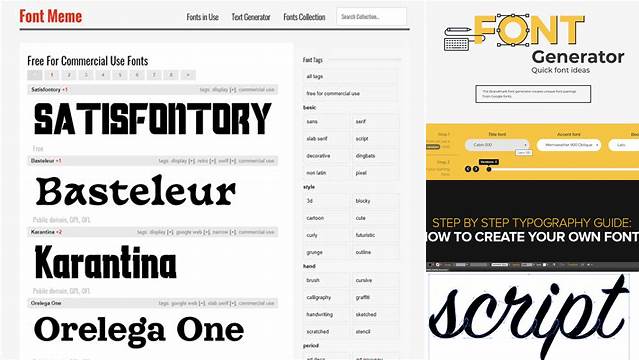
Free Font Creator: Design Your Own Fonts Online!
Creating your own font might sound like something only professional designers can do, but guess what? It's totally accessible to everyone now, thanks to free font creator websites! These platforms are super user-friendly and packed with features that let you unleash your inner typographer. Let's dive into the awesome world of font creation and see how you can make your mark with personalized typography.
H2: Understanding Free Font Creator Websites
Free font creator websites are online tools that allow you to design, customize, and generate your own fonts without needing to download any software. They typically offer a range of drawing tools, character templates, and import options to help you craft unique typefaces. These websites democratize font design, making it possible for hobbyists, educators, and small business owners to create custom fonts that reflect their brand or personality. The beauty of these platforms is that they're often intuitive, meaning you don't need years of graphic design experience to get started. Many also offer tutorials and support forums to guide you through the process. Plus, the "free" aspect is a major draw, allowing you to experiment without any financial commitment. Whether you're looking to create a handwritten font, a futuristic typeface, or a simple corporate font, free font creator websites provide the resources and flexibility you need. It's about more than just saving money, though. It's about gaining creative control and producing fonts that are perfectly tailored to your specific needs and vision. So, if you've ever dreamed of seeing your own handwriting transformed into a digital font or designing a logo with a truly unique typeface, these websites are your gateway to making that dream a reality.
H2: Benefits of Using Online Font Makers
Using an online font maker comes with a plethora of benefits that make the entire process both accessible and enjoyable. First and foremost, the convenience factor is huge. Instead of installing bulky software on your computer, you can simply access a free font creator website from any device with an internet connection. This means you can work on your fonts from your home, office, or even while traveling. Another major advantage is the cost savings. Traditional font design software can be quite expensive, putting it out of reach for many individuals and small businesses. With free font creator websites, you can create professional-quality fonts without spending a dime. These platforms also tend to be very user-friendly. They often feature intuitive interfaces and drag-and-drop functionality, making it easy for beginners to jump right in and start designing. Plus, many free font creator websites offer real-time previews, so you can see how your font looks as you're creating it. This allows you to make adjustments and refinements on the fly, ensuring that the final product meets your expectations. Furthermore, online font makers often provide collaborative features, allowing you to work with others on the same project. This can be particularly useful for teams or individuals who want to get feedback from others during the design process. Finally, many free font creator websites offer a wide range of export options, allowing you to save your fonts in various formats that are compatible with different applications and operating systems. In short, using an online font maker combines convenience, affordability, ease of use, and collaboration, making it a fantastic option for anyone interested in creating their own fonts.
H2: Key Features to Look for in a Font Creator
When you're on the hunt for the perfect free font creator website, there are a few key features you should keep an eye out for to ensure you get the most out of your font-making journey. First up is a user-friendly interface. Nobody wants to spend hours trying to figure out how to use a complicated tool. Look for a website that has a clean, intuitive layout and is easy to navigate. The best free font creator websites will also offer a variety of drawing tools. Think about features like pen tools, brush tools, and shape tools, which will allow you to create a wide range of different font styles. The more versatile the tools, the more creative you can get with your designs. Another important feature is the ability to import and export different file formats. You'll want to be able to import existing images or designs to use as a base for your font, and you'll also need to be able to export your finished font in a format that's compatible with your operating system and design software. Look for support for file formats like TTF (TrueType Font) and OTF (OpenType Font). Character customization options are also crucial. The ability to adjust the kerning, spacing, and other attributes of individual characters will give you greater control over the overall look and feel of your font. Finally, consider whether the free font creator website offers any collaborative features. If you plan to work on fonts with others, look for a platform that allows multiple users to access and edit the same project. By keeping these key features in mind, you'll be well-equipped to choose a free font creator website that meets your needs and helps you bring your font ideas to life.
H2: Top Free Font Creator Websites Reviewed
Finding the right free font creator website can be a game-changer for your design projects. Let's take a look at some of the top contenders in the world of online font creation. First up is BirdFont. This open-source font editor is a favorite among designers for its clean interface and powerful features. It supports a variety of vector formats and allows you to create both TrueType and OpenType fonts. BirdFont is particularly well-suited for creating fonts with complex shapes and curves. Next, there's FontStruct, a browser-based font editor that uses a modular approach to font design. With FontStruct, you create fonts by assembling geometric shapes, which makes it easy to create pixel-perfect fonts. It's a great option for beginners who are just starting to explore font design. Then we have Calligraphr, which is a unique tool that lets you turn your handwriting into a font. Simply print out a template, fill it in with your handwriting, and then upload it to Calligraphr. The website will then convert your handwriting into a usable font file. This is a fantastic option for creating personalized fonts for invitations, cards, and other projects. Another popular choice is Metaflop, a parametric font editor that allows you to create fonts by adjusting a set of parameters. This makes it easy to create variations of a font and experiment with different styles. Metaflop is a great option for designers who want to create fonts that are both unique and versatile. Finally, there's FontForge, a powerful and feature-rich font editor that's been around for many years. FontForge is a bit more complex than some of the other options on this list, but it offers a wide range of advanced features for creating professional-quality fonts. So, whether you're a beginner or an experienced designer, there's a free font creator website out there that's perfect for you.
H2: Step-by-Step Guide to Creating Your First Font
So, you're ready to dive into the world of font creation using a free font creator website? Awesome! Here’s a step-by-step guide to help you create your very first font: Step 1: Choose Your Platform. Select a free font creator website that suits your needs. Consider the features, user interface, and any tutorials it offers. Step 2: Set Up Your Account. Most platforms will require you to create an account. This is usually a quick and easy process, requiring just an email address and a password. Step 3: Familiarize Yourself with the Interface. Take some time to explore the layout and tools. Look for the drawing tools, character customization options, and import/export features. Step 4: Start with a Template (Optional). Many free font creator websites offer templates for each character. This can be a helpful starting point, especially if you're new to font design. Step 5: Begin Designing Your Characters. Use the drawing tools to create each character in your font. Start with the basic letters (A, B, C, etc.) and then move on to numbers, symbols, and punctuation marks. Step 6: Customize Each Character. Adjust the kerning, spacing, and other attributes of each character to fine-tune the overall look and feel of your font. Step 7: Test Your Font. Use the preview feature to see how your font looks in different contexts. Try typing out different words and phrases to see how the characters work together. Step 8: Make Adjustments. Based on your testing, make any necessary adjustments to your characters. Step 9: Export Your Font. Once you're happy with your font, export it in a compatible file format (e.g., TTF or OTF). Step 10: Install and Use Your Font. Install your new font on your computer and start using it in your design projects. Congratulations, you've created your first font! With a little practice and experimentation, you'll be creating professional-quality fonts in no time using a free font creator website.
H2: Designing Different Font Styles
Crafting a unique font style with a free font creator website is an exciting venture, allowing you to tailor your typography to perfectly match your creative vision. Whether you're aiming for a classic serif, a modern sans-serif, or something entirely avant-garde, the possibilities are endless. Let's explore some different font styles you can design and how to approach each one using these online tools. First, consider the elegant and timeless serif fonts. These fonts are characterized by their small decorative strokes, or serifs, at the end of each character. To create a serif font, pay close attention to the thickness and shape of these serifs, ensuring they are consistent across all characters. Next, we have the clean and minimalist sans-serif fonts. These fonts lack the serifs, giving them a more modern and streamlined appearance. When designing a sans-serif font, focus on the uniformity of the strokes and the overall balance of the characters. For a more whimsical and playful look, consider designing a script font. Script fonts mimic handwriting and often feature flowing, connected letters. To create a script font, focus on the rhythm and flow of the characters, ensuring they connect smoothly and naturally. If you're feeling adventurous, you might want to try designing a display font. Display fonts are designed to be eye-catching and are often used for headlines, logos, and other prominent elements. When designing a display font, don't be afraid to experiment with bold shapes, unusual letterforms, and other unique design elements. Remember, the key to designing different font styles is to understand the characteristics of each style and then use the tools available on your free font creator website to bring your vision to life. Experiment with different stroke weights, letter spacing, and other attributes until you achieve the desired look and feel.
H2: Tips for Creating Readable Fonts
Creating a visually appealing font is only half the battle; ensuring it's readable is equally crucial, especially when using a free font creator website. Readability refers to how easily the text can be read and understood, and it's influenced by several factors, including letter spacing, font size, and contrast. Here are some essential tips for creating fonts that are easy on the eyes: First, pay close attention to letter spacing, also known as kerning. The space between individual letters can significantly impact readability. Too little space and the letters will appear crowded and difficult to distinguish. Too much space and the letters will seem disconnected and disjointed. Experiment with different kerning values until you find a balance that allows the letters to breathe without feeling too far apart. Next, consider the x-height of your font. The x-height refers to the height of the lowercase letters, such as x, a, and e. A font with a larger x-height tends to be more readable than a font with a smaller x-height, especially at smaller font sizes. Also, think about the stroke weight of your font. The stroke weight refers to the thickness of the lines that make up the characters. A font with strokes that are too thin can be difficult to read, especially on screens. A font with strokes that are too thick can appear clunky and overwhelming. Aim for a stroke weight that is neither too thin nor too thick, but just right. Another important factor is contrast. The contrast between the text and the background can significantly impact readability. Make sure there is sufficient contrast between your font and the background on which it will be used. Finally, test your font at different sizes and in different contexts to ensure it remains readable in a variety of situations. By following these tips, you can create fonts that are not only visually appealing but also easy to read and understand, enhancing the overall user experience when you are using your free font creator website.
H2: Common Mistakes to Avoid When Designing Fonts
Designing your own font can be an exciting and creative process, especially when you're taking advantage of a free font creator website. However, it's easy to fall into some common traps that can compromise the quality and usability of your font. Being aware of these pitfalls can help you create fonts that are both unique and professional. One of the most common mistakes is inconsistency. Inconsistency in letterforms, stroke weights, and spacing can make your font look amateurish and disjointed. Make sure to maintain a consistent style and rhythm throughout your font. Another common mistake is neglecting kerning. Kerning, the adjustment of space between individual letter pairs, is crucial for readability. Ignoring kerning can result in awkward gaps or overlapping letters, making your font difficult to read. Take the time to carefully kern your font, paying attention to letter combinations that often cause problems, such as AV, WA, and To. Another mistake is over-complicating your font. While it's tempting to add lots of decorative elements and flourishes, doing so can make your font look cluttered and difficult to read. Keep your design clean and simple, focusing on the essential elements of each character. Don't forget about testing your font. It's essential to test your font in a variety of contexts to ensure it remains readable and visually appealing. Test it at different sizes, in different applications, and on different devices. Finally, failing to get feedback can be a major pitfall. Share your font with others and ask for their honest opinions. Constructive criticism can help you identify areas for improvement and refine your design. By avoiding these common mistakes, you can create fonts that are both unique and professional using your free font creator website.
H3: Creating Fonts for Logos
Designing a logo is a crucial aspect of branding, and the font you choose can significantly impact how your brand is perceived. If you're looking for a unique and distinctive logo, creating your own font using a free font creator website can be a fantastic option. Here's how to approach creating fonts specifically for logos: First, consider your brand identity. What are the key values and characteristics of your brand? Is it modern and innovative, or classic and traditional? The font you create should reflect these qualities. Next, think about the overall style of your logo. Is it minimalist and understated, or bold and eye-catching? Your font should complement the other elements of your logo, such as the colors and imagery. When designing your font, focus on creating a strong and memorable visual impact. Logos are often viewed at small sizes, so your font needs to be easily recognizable and readable, even at small sizes. Pay close attention to the letterforms, stroke weights, and spacing, ensuring they are well-balanced and harmonious. Another important consideration is versatility. Your logo font may be used in a variety of contexts, from websites to business cards to signage. Make sure your font is versatile enough to work well in all of these situations. Also, don't be afraid to experiment. Creating a logo font is an opportunity to push the boundaries of typography and create something truly unique. Try different letterforms, stroke weights, and design elements until you find a font that perfectly captures the essence of your brand. Finally, get feedback from others. Share your logo font with colleagues, friends, or even potential customers and ask for their honest opinions. Their feedback can help you refine your design and ensure it resonates with your target audience. By following these tips, you can create a logo font that is both distinctive and effective, helping your brand stand out from the competition using a free font creator website.
H3: Developing Fonts for Websites
Typography plays a vital role in web design, influencing user experience and brand perception. Creating custom fonts for your website using a free font creator website can set you apart and enhance your online presence. Here's how to approach developing fonts specifically for web use: First, prioritize readability. Website fonts need to be easy to read on screens, often at varying sizes and resolutions. Focus on clear letterforms, ample spacing, and a balanced x-height. Consider the target audience and the overall tone of your website. A playful, informal website might benefit from a more whimsical font, while a professional, corporate site would likely need a cleaner, more formal typeface. Optimize for different browsers and devices. Web fonts need to render consistently across various browsers (Chrome, Firefox, Safari) and devices (desktops, laptops, tablets, smartphones). Test your font thoroughly to ensure it looks good everywhere. Use web-friendly font formats. Modern web design typically uses formats like WOFF (Web Open Font Format) and WOFF2, which are compressed and optimized for online use. Ensure your free font creator website supports exporting to these formats. Think about font loading performance. Large font files can slow down your website's loading speed, negatively impacting user experience. Optimize your font files by reducing unnecessary characters and using font subsetting techniques. Consider variable fonts. Variable fonts offer a range of stylistic variations within a single font file, allowing for greater flexibility and efficiency. If your free font creator website supports variable fonts, explore the possibilities. Test your font with different background colors and text sizes to ensure sufficient contrast and readability. Use CSS to control font styles. CSS (Cascading Style Sheets) allows you to specify font styles, sizes, colors, and other properties, giving you precise control over how your font appears on your website. By following these tips, you can develop fonts that enhance the visual appeal and usability of your website using a free font creator website.
H3: Using Fonts in Marketing Materials
In the realm of marketing, typography wields significant power in shaping brand perception and influencing audience engagement. Creating custom fonts for your marketing materials using a free font creator website enables you to craft a unique and compelling brand identity. Here’s how to effectively use fonts in your marketing efforts: First, ensure brand consistency. The fonts you use in your marketing materials should align with your overall brand identity. Choose fonts that reflect the personality and values of your brand, creating a cohesive and recognizable look. Prioritize readability. Marketing materials need to be easily readable, whether they're displayed on a website, in a brochure, or on social media. Select fonts with clear letterforms, ample spacing, and appropriate x-heights. Use hierarchy to guide the reader's eye. Employ different font sizes, weights, and styles to create a visual hierarchy that guides the reader through your marketing message. Use larger, bolder fonts for headlines and smaller, lighter fonts for body text. Choose fonts that are appropriate for the medium. The fonts you use for print materials may differ from those you use for digital marketing. Print fonts need to be crisp and clear, while digital fonts need to be optimized for screen display. Pair fonts effectively. Combining different fonts can add visual interest and enhance the overall design of your marketing materials. However, it's important to choose fonts that complement each other and create a harmonious look. Use color to enhance the impact of your fonts. Color can be used to draw attention to key words and phrases, create a sense of mood, and reinforce your brand identity. Be mindful of licensing. Ensure you have the necessary licenses to use your fonts in your marketing materials. Some free font creator websites offer fonts with commercial licenses, while others may require you to purchase a license. By following these tips, you can leverage the power of typography to create effective and engaging marketing materials using a free font creator website.
H3: Monetizing Your Font Creations
Creating fonts can be more than just a creative outlet; it can also be a way to generate income. If you're skilled at font design and have access to a free font creator website, you can monetize your creations in several ways. Here’s how: First, sell your fonts on online marketplaces. Several online marketplaces specialize in selling fonts, such as MyFonts, Creative Market, and Fontspring. These platforms offer a wide audience of potential customers and handle the technical aspects of selling and distributing your fonts. Offer your fonts on your own website. Creating your own website or online store allows you to have more control over the pricing, licensing, and branding of your fonts. You'll need to handle the technical aspects of selling and distributing your fonts, but you'll also keep a larger share of the revenue. Sell custom fonts to businesses and individuals. Many businesses and individuals are looking for unique and custom fonts to use in their logos, websites, and marketing materials. Offer your services as a custom font designer and create fonts tailored to their specific needs. Create font bundles. Bundling several of your fonts together and selling them at a discounted price can be a great way to increase sales and reach a wider audience. Offer your fonts for free with a commercial license. This can be a great way to build your reputation and gain exposure for your fonts. Just be sure to include a clear and concise commercial license that specifies how your fonts can be used. Create fonts for specific niches. Creating fonts for specific niches, such as wedding invitations, children's books, or science fiction novels, can help you target a specific audience and increase your chances of making sales. Collaborate with other designers. Collaborating with other designers on font projects can help you expand your reach and create more diverse and appealing fonts. By following these tips, you can turn your font-making skills into a source of income using your free font creator website.
H3: The Future of Font Design
The world of font design is constantly evolving, driven by technological advancements and changing user preferences. The rise of free font creator websites has democratized font design, making it accessible to a wider audience. Here’s a glimpse into the future of font design: The increasing popularity of variable fonts. Variable fonts allow for greater flexibility and efficiency in web design, enabling designers to create a wide range of stylistic variations within a single font file. Expect to see more free font creator websites offering support for variable fonts. The integration of AI in font design. Artificial intelligence is beginning to play a role in font design, automating tasks such as kerning and hinting and even generating entire fonts based on user input. Expect to see more AI-powered font design tools in the future. The growth of personalized fonts. As brands strive to create unique and memorable experiences, personalized fonts are becoming increasingly popular. Expect to see more designers offering custom font design services to businesses and individuals. The rise of 3D fonts. With the increasing popularity of virtual reality and augmented reality, 3D fonts are becoming more relevant. Expect to see more designers experimenting with 3D font design and creating fonts that can be used in immersive environments. The democratization of font education. Online courses and tutorials are making font design education more accessible to aspiring typographers. Expect to see a new generation of talented font designers emerging from diverse backgrounds. The blurring of lines between font design and graphic design. As designers increasingly use fonts as graphic elements, the lines between font design and graphic design are becoming blurred. Expect to see more designers who are skilled in both font design and graphic design. The increasing importance of accessibility. As designers become more aware of the importance of accessibility, they are paying more attention to the readability and usability of their fonts. Expect to see more fonts designed with accessibility in mind. By staying abreast of these trends, you can position yourself for success in the ever-evolving world of font design, even when using a free font creator website.
H3: Font Licensing Explained
Understanding font licensing is crucial when you're creating and using fonts, especially if you're using a free font creator website and plan to distribute or sell your creations. Font licenses dictate how a font can be used, and violating these terms can lead to legal issues. Here's a breakdown of font licensing explained simply: End User License Agreement (EULA): Most fonts come with an EULA, which is a legal agreement between the font designer or foundry and the end-user (you). The EULA outlines the permitted and prohibited uses of the font. Common Types of Font Licenses: Desktop License: This is the most common type of font license, allowing you to install the font on your computer and use it in documents, graphics, and other desktop applications. Webfont License: This license allows you to use the font on your website, typically using technologies like CSS @font-face. App License: This license allows you to embed the font in a mobile app or software application. Embedding License: This license allows you to embed the font in documents or devices for distribution. Commercial vs. Personal Use: Some fonts are licensed for personal use only, meaning you can't use them in projects that generate revenue. Commercial licenses allow you to use the font in commercial projects. Restrictions and Limitations: Font licenses often have restrictions, such as the number of users who can install the font, the number of devices on which the font can be used, and whether you can modify or redistribute the font. Open Source Fonts: Some fonts are released under open-source licenses like the SIL Open Font License (OFL). These licenses typically allow you to use, modify, and distribute the font freely, even for commercial purposes. Font Redistribution: Most font licenses prohibit you from redistributing the font to others, unless you have explicit permission from the font designer or foundry. Font Modification: Some font licenses allow you to modify the font, while others do not. If you're planning to modify a font, be sure to check the license terms first. By understanding font licensing, you can ensure that you're using fonts legally and ethically, whether you're creating your own fonts using a free font creator website or using fonts created by others.
H3: Font Pairing Techniques
Choosing the right fonts for your design projects is crucial, and pairing fonts effectively can elevate the overall aesthetic and readability. When using a free font creator website to design your own fonts, understanding font pairing techniques becomes even more important. Here are some tips for pairing fonts like a pro: Contrast is Key: Look for fonts that contrast each other in terms of style, weight, or size. For example, pair a bold, attention-grabbing font with a subtle, understated font. Hierarchy Matters: Use different fonts for headlines and body text to create a visual hierarchy and guide the reader's eye. Choose a headline font that is bold and eye-catching, and a body font that is easy to read. Consider the Mood: The fonts you choose should reflect the overall mood and tone of your design. For example, a playful design might benefit from whimsical fonts, while a professional design might require more conservative fonts. Limit the Number of Fonts: As a general rule, it's best to limit the number of fonts you use in a single design to two or three. Using too many fonts can create a cluttered and confusing look. Use a Font Pairing Tool: Several online tools can help you find fonts that pair well together, such as FontPair and Google Fonts. These tools can be a great starting point for finding complementary fonts. Pair a Serif with a Sans-Serif: A classic pairing technique is to combine a serif font (with serifs) with a sans-serif font (without serifs). This creates a visually appealing contrast and enhances readability. Consider the Font Family: If you're using a font family that includes multiple weights and styles, try using different variations of the same font to create a cohesive look. Test Your Font Pairings: Before finalizing your font choices, test them out in different contexts to ensure they look good together and are easy to read. By following these font pairing techniques, you can create visually appealing and effective designs, even when you are using custom fonts made with a free font creator website.
H3: Creating Handwritten Fonts
Creating a handwritten font can add a personal and authentic touch to your designs, and using a free font creator website makes the process accessible to everyone. Here's how to create your own handwritten font: Choose the Right Tool: Select a free font creator website that supports importing and converting handwritten characters into a font format. Some tools are specifically designed for this purpose, such as Calligraphr or Fontself Maker (though Fontself Maker isn't free, it’s often used in conjunction with free tools for initial design). Write Out Your Characters: Use a pen or marker to write out each letter, number, and symbol you want to include in your font. Be consistent with your handwriting style, but don't worry about making it perfect. Imperfections can add to the charm of a handwritten font. Scan or Photograph Your Characters: Scan your handwritten characters or take clear photographs of them. Ensure the images are well-lit and have good contrast. Import Your Characters: Import your scanned or photographed characters into your chosen free font creator website. Most tools will allow you to import images in formats like JPG or PNG. Clean Up Your Characters: Use the tools provided by the free font creator website to clean up your characters. This may involve removing background noise, adjusting contrast, and smoothing out rough edges. Trace Your Characters: Some tools may require you to trace your characters using vector drawing tools. This will convert your raster images into vector graphics, which are necessary for creating a font. Adjust Kerning and Spacing: Once your characters are imported and cleaned up, adjust the kerning (spacing between letters) and spacing to ensure your font is readable and visually appealing. Test Your Font: Before finalizing your font, test it out in different contexts to ensure it looks good and is easy to read. Make any necessary adjustments to the characters, kerning, or spacing. Export Your Font: Once you're happy with your font, export it in a compatible font format, such as TTF or OTF. By following these steps, you can create a unique and personalized handwritten font using a free font creator website.
H3: Designing Display Fonts
Display fonts are designed to be eye-catching and attention-grabbing, making them perfect for headlines, logos, and other prominent design elements. Creating your own display font using a free font creator website allows you to create a unique and memorable visual identity. Here's how to design a display font: Define Your Style: Before you start designing, define the style and personality you want your display font to convey. Is it bold and modern, or quirky and playful? Having a clear vision will guide your design decisions. Experiment with Letterforms: Display fonts are all about experimentation, so don't be afraid to push the boundaries of traditional letterforms. Try using unusual shapes, angles, and proportions to create a unique and memorable look. Use Bold Strokes: Display fonts often feature bold strokes and strong contrasts to grab attention. Experiment with different stroke weights to find a balance that is both visually striking and legible. Add Unique Details: Consider adding unique details or flourishes to your display font to make it stand out. This could include serifs, swashes, or other decorative elements. Pay Attention to Spacing: While display fonts are often used at large sizes, it's still important to pay attention to spacing. Adjust the kerning and spacing to ensure your font is readable and visually appealing. Consider the Context: Think about the context in which your display font will be used. Will it be used for headlines, logos, or other design elements? Designing with the intended use in mind will help you create a font that is both effective and appropriate. Get Inspired: Look at other display fonts for inspiration. Pay attention to the letterforms, strokes, and details that make them unique and memorable. Test Your Font: Before finalizing your display font, test it out in different contexts to ensure it looks good and is easy to read. Make any necessary adjustments to the letterforms, spacing, or details. By following these tips, you can design a display font that is both eye-catching and effective, using a free font creator website.
H3: Exploring Geometric Fonts
Geometric fonts are characterized by their clean lines, simple shapes, and geometric forms. They often have a modern and minimalist aesthetic, making them popular for logos, branding, and other design projects. Creating your own geometric font using a free font creator website allows you to achieve a unique and contemporary look. Here's how to explore geometric fonts: Start with Basic Shapes: Begin by creating basic geometric shapes, such as circles, squares, and triangles. These shapes will form the foundation of your letterforms. Maintain Consistency: Consistency is key when designing a geometric font. Ensure that the shapes, angles, and proportions are consistent throughout the entire font. Use a Grid System: Use a grid system to help you align and space your letterforms accurately. This will ensure that your font has a clean and organized appearance. Pay Attention to Negative Space: Negative space (the space around and between the letterforms) is just as important as the letterforms themselves. Pay attention to the negative space to ensure your font is balanced and readable. Experiment with Different Weights: Try creating different weights of your geometric font, such as light, regular, and bold. This will give you more flexibility when using your font in different design contexts. Consider the Overall Aesthetic: Think about the overall aesthetic you want to achieve with your geometric font. Do you want it to be modern and minimalist, or bold and impactful? Let your aesthetic vision guide your design decisions. Test Your Font: Before finalizing your geometric font, test it out in different contexts to ensure it looks good and is easy to read. Make any necessary adjustments to the letterforms, spacing, or weights. Get Inspired: Look at other geometric fonts for inspiration. Pay attention to the shapes, angles, and proportions that make them unique and effective. By following these tips, you can explore the world of geometric fonts and create your own unique and contemporary typeface using a free font creator website.
H3: Mastering Pixel Fonts
Pixel fonts, also known as bitmap fonts, are fonts that are designed to be displayed at small sizes, where each character is made up of individual pixels. They are commonly used in retro games, embedded systems, and other applications where limited screen resolution is a factor. Creating your own pixel font using a free font creator website allows you to achieve a unique and nostalgic look. Here's how to master pixel fonts: Start with a Small Grid: Pixel fonts are typically designed on a small grid, such as 5x7 or 8x8 pixels. This limited grid size forces you to be creative and efficient with your design. Use Simple Shapes: Since you're working with a limited number of pixels, it's important to use simple shapes and avoid complex details. Focus on creating recognizable letterforms with minimal pixels. Maintain Consistency: Consistency is key when designing a pixel font. Ensure that the letterforms, spacing, and alignment are consistent throughout the entire font. Pay Attention to Readability: Pixel fonts can be difficult to read, especially at small sizes. Pay attention to readability and make sure your font is legible. Test Your Font: Before finalizing your pixel font, test it out in different contexts to ensure it looks good and is easy to read. Pay attention to how the font renders on different screens and at different sizes. Use a Pixel Font Editor: Use a pixel font editor to create your pixel font. These editors typically provide tools for creating and editing pixel-based characters. Consider the Intended Use: Think about the intended use of your pixel font. Will it be used for retro games, embedded systems, or other applications? Designing with the intended use in mind will help you create a font that is both effective and appropriate. Get Inspired: Look at other pixel fonts for inspiration. Pay attention to the letterforms, spacing, and overall aesthetic. By following these tips, you can master the art of pixel fonts and create your own unique and nostalgic typeface using a free font creator website.